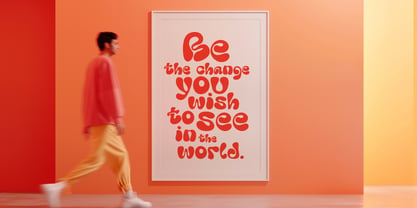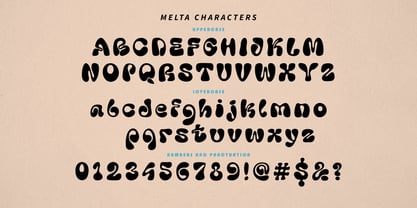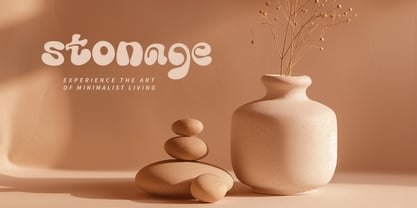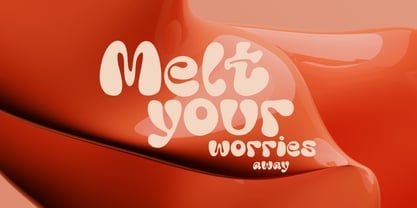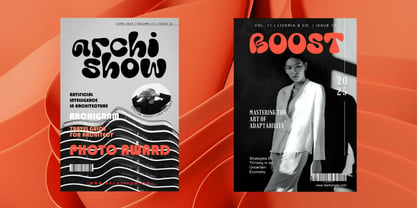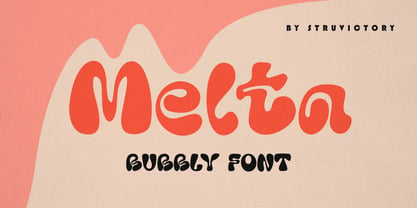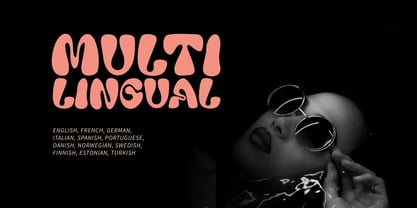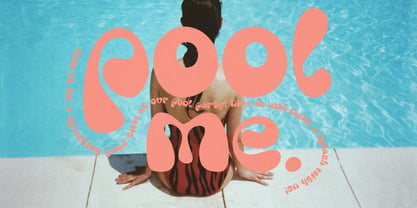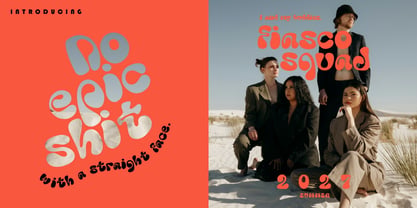
Melta Bubbly
La familia tipográfica Melta Bubbly fue diseñada por Viktoryia Strukouskaya y publicada por Struvictory.art. Melta Bubbly contiene 1 estilos. Más información sobre esta familia
Introducing Melta Bubbly Font: The Perfect Blend of Retro Inspiration and Modern Sophistication. Elevate your designs with Melta Bubbly, a bold and rounded font that effortlessly captures the essence of retro aesthetics. Its smooth curves and bold presence make it ideal for modern posters, magazine headlines, and logos. Let Melta Bubbly bring a touch of nostalgia and contemporary allure to your projects, making a lasting impression with its captivating design. Melta Bubbly includes the most popular latin-based languages.